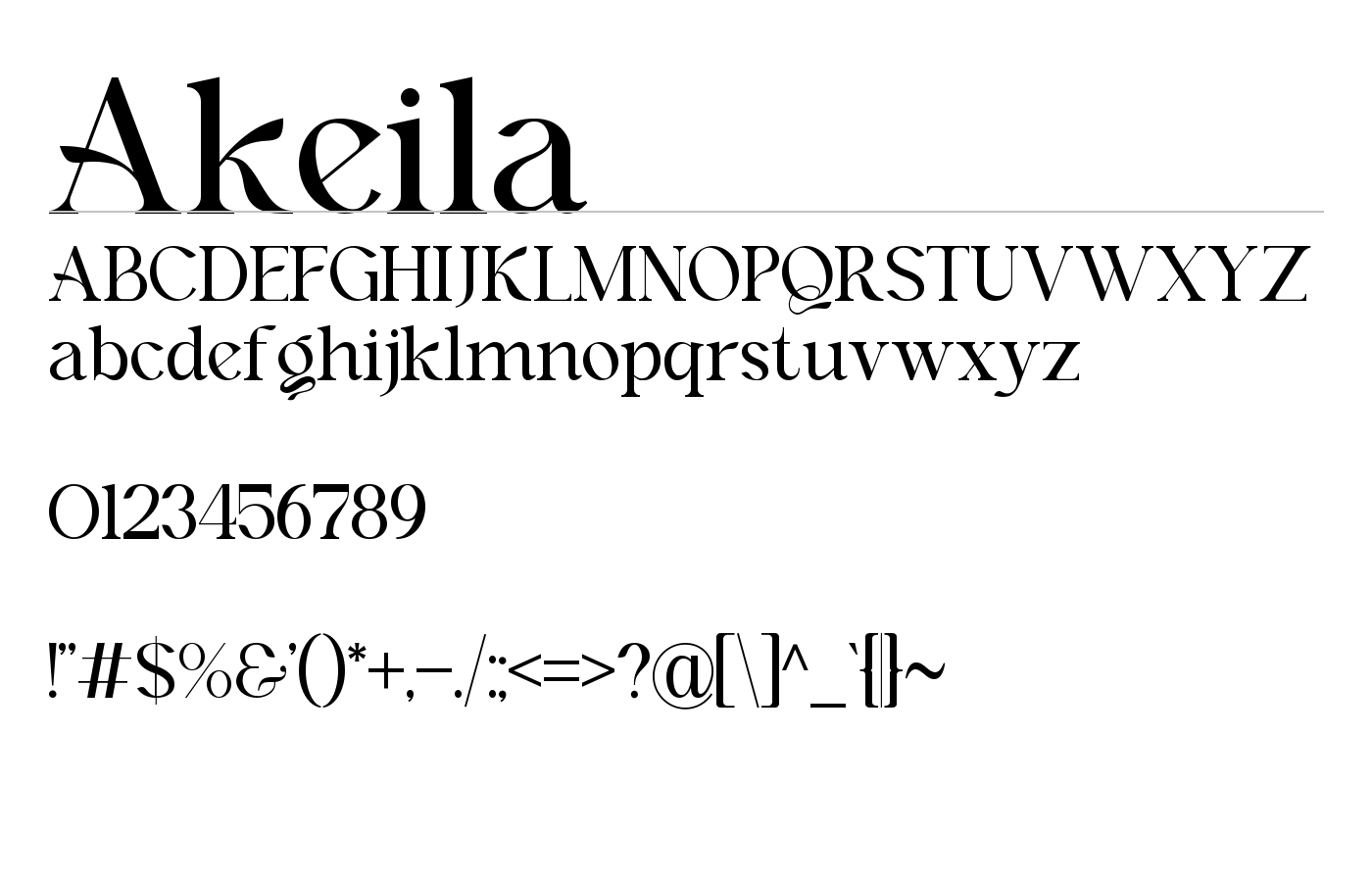
Akeila is a refined serif font with elegant high contrast between thick and thin strokes, featuring sharp, delicately bracketed serifs and distinctive, stylish letterforms. Its classic, sophisticated character with both uppercase and lowercase support makes it ideal for luxury branding, editorial headlines, and upscale design projects where a touch of timeless elegance is desired.
Akeila Font
About Akeila Font
| Designer | SlideShoot 2023 |